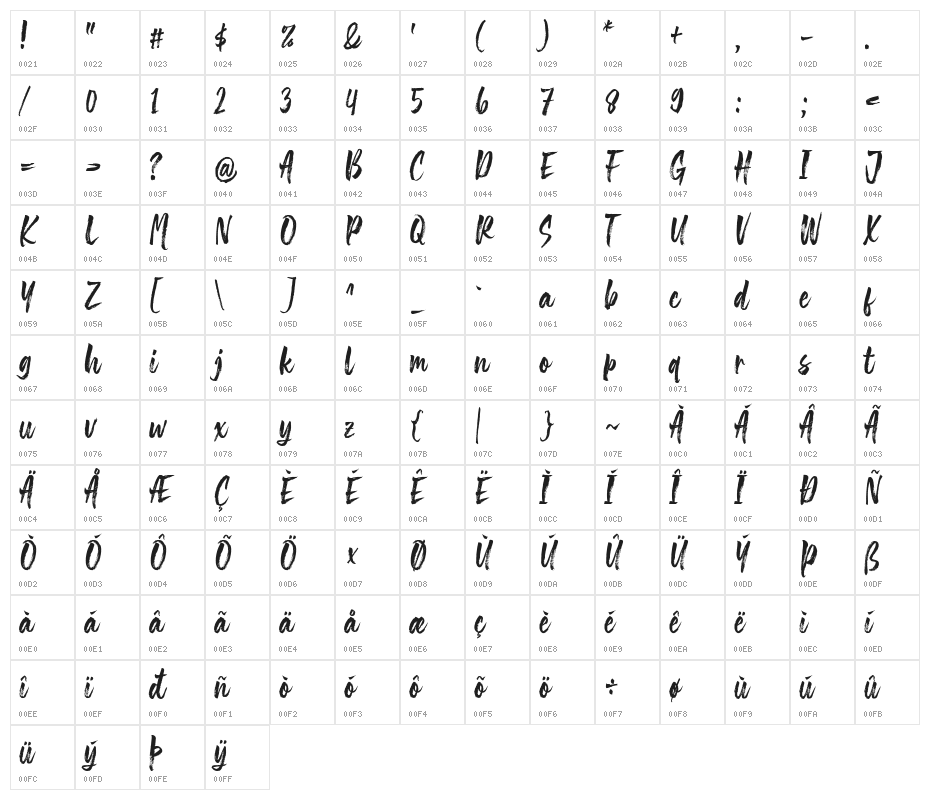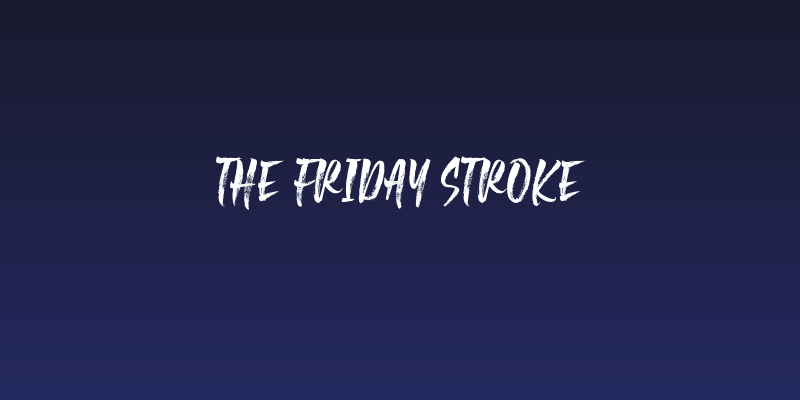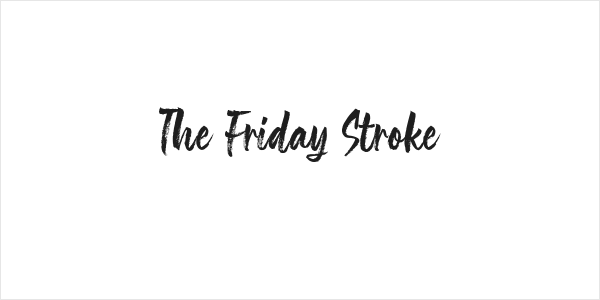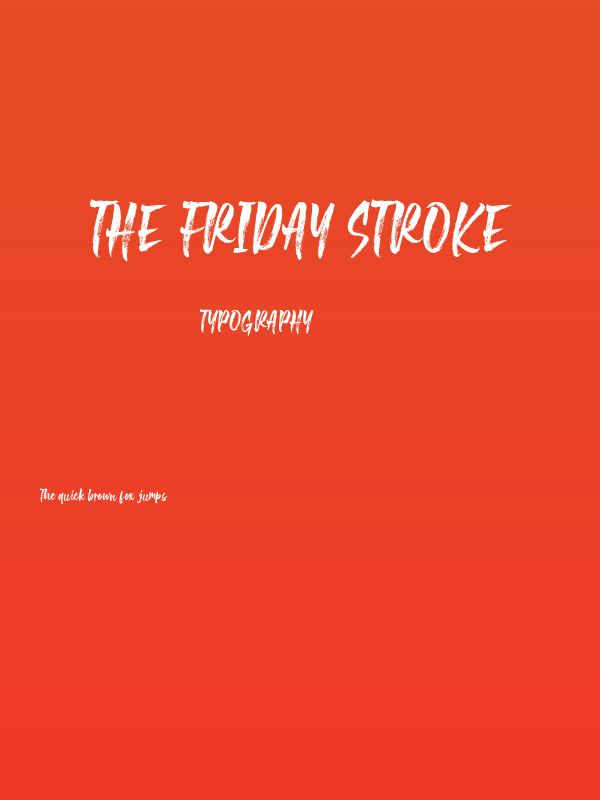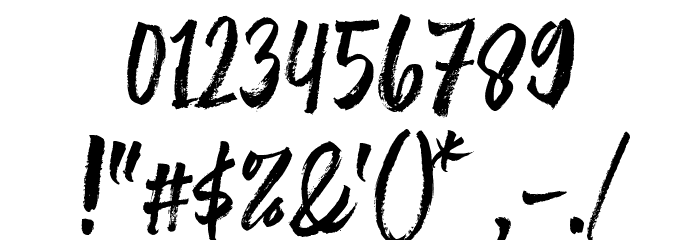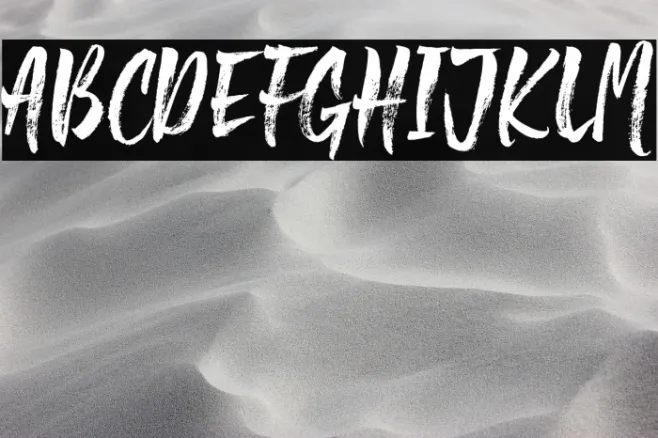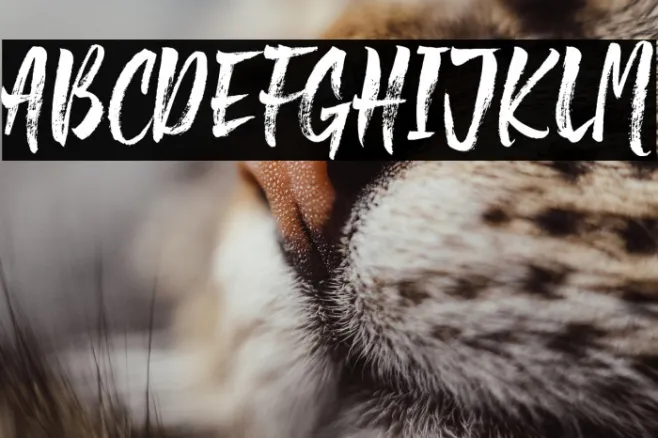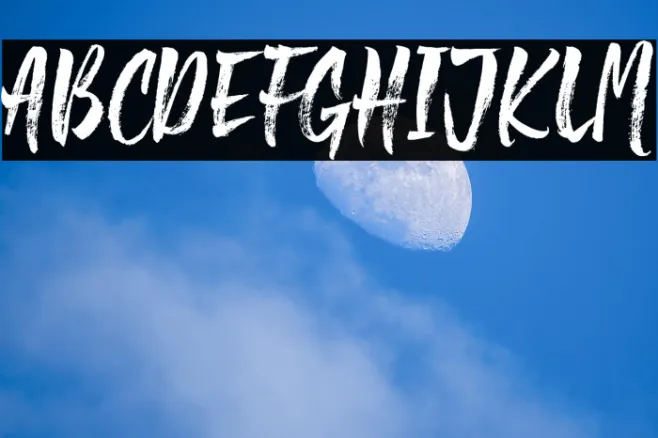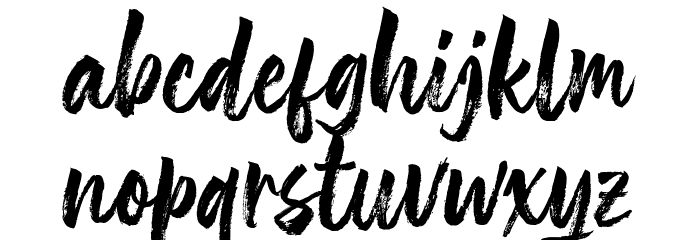
The Friday Stroke Font
The Friday Stroke Description
This font features a bold and expressive brush style, characterized by its dynamic and energetic strokes. The letters have a hand-painted appearance, with varying thickness and a slightly rough texture that adds a sense of movement and spontaneity. The uppercase and lowercase letters maintain a consistent style, with a playful and artistic flair. The numbers and special characters follow the same expressive design, making the font versatile for creative projects. Its unique style is perfect for capturing attention and conveying a sense of creativity and individuality.
| Proposed Projects | Ideal for branding, posters, social media graphics, and any project requiring a bold, artistic touch. |